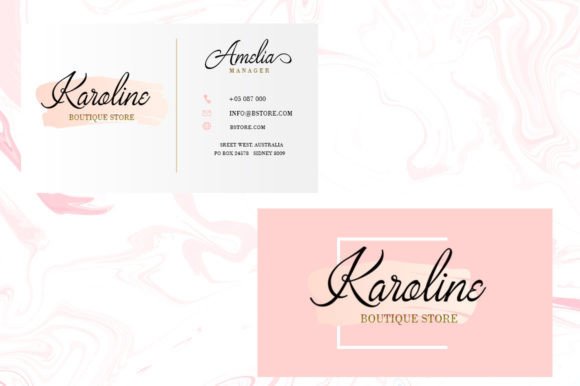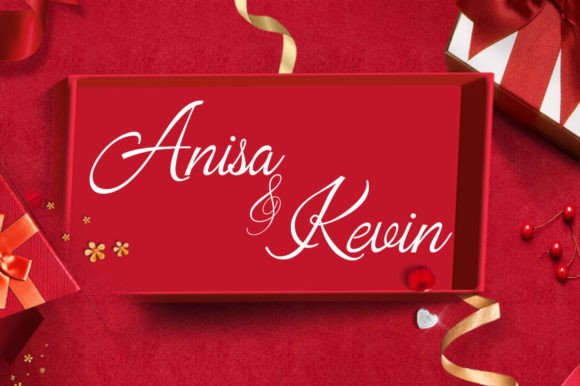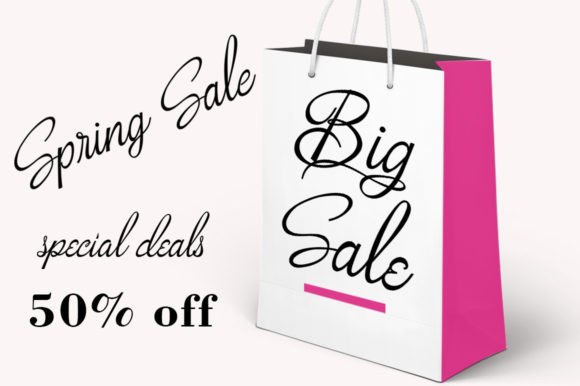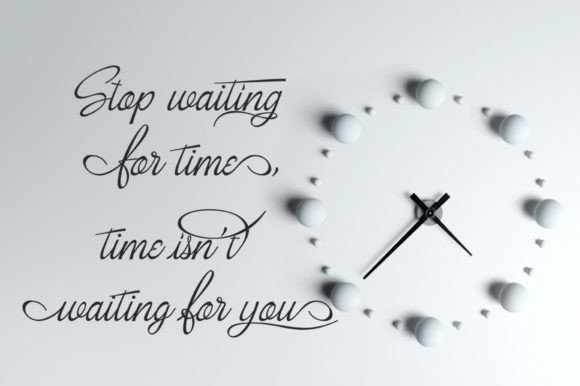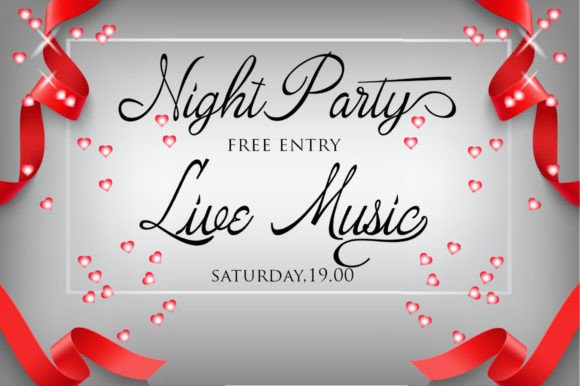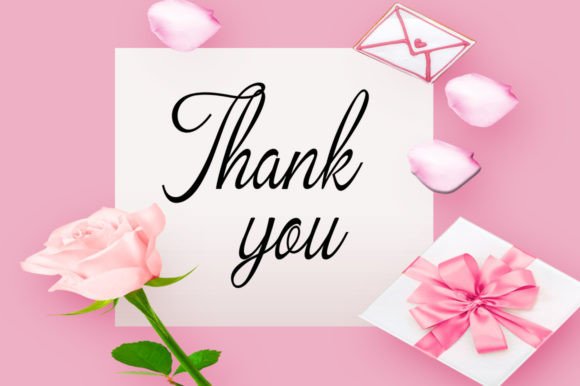
The Perfect Blend of Whimsy and Elegance
Have you ever found yourself staring at a beautifully crafted font, wondering how it was created and what inspired its designer? For many creatives, the process of discovering a new font is like stumbling upon a hidden treasure, waiting to be unleashed in their next project. This is exactly what happens when you lay eyes on the Armelya Font – a soft and sweet calligraphic typeface that seems to dance along the baseline.
With its casual yet elegant touch, Armelya Font is the perfect addition to any designer’s toolkit. Whether you’re working on a logo, wedding invitation, or even a t-shirt design, this versatile font is sure to bring a touch of whimsy and sophistication to your project. As a designer, you’ll appreciate the value that Armelya Font brings to your work, adding a unique and personalized touch to your creations.
Armelya Font Key Features
- Font Family: Armelya is a typeface that includes multiple font styles, such as regular, bold, italic, and bold-italic.
- Unique Characteristics: The font features a unique, hand-drawn style with a mix of modern and vintage elements, making it suitable for a wide range of creative projects.
Armelya Font Review
When I first saw the Armelya font, I was drawn to its elegant and sophisticated look. The font’s combination of rounded edges and sharp lines creates a unique aesthetic that is both modern and timeless ✨. The font is highly versatile and can be used in a variety of settings, from formal documents to creative projects.
- The Armelya font is highly customizable, with a wide range of weights and styles to choose from.
- The font’s rounded edges make it easy to read, even at smaller font sizes.
- The Armelya font is highly legible, making it a great choice for body text.
However, I do have a few concerns with the font. One of the main limitations is that the font may not be as effective at larger font sizes, as the rounded edges can become overwhelming ⚠️. Additionally, the font may not be the best choice for fonts that require a lot of emphasis, as the rounded edges can make the text appear less bold.
Overall, I think the Armelya font is a great choice for designers who are looking for a unique and elegant font. While it may have a few limitations, the font’s versatility and customizability make it a great addition to any design project.
Tips for Getting the Most Out of Armelya Font
Some tips for getting the most out of Armelya Font include:
– Using it for titles and headings to add a touch of elegance.
– Pairing it with other fonts to create a unique and interesting look.
– Experimenting with different font sizes and styles to find the perfect balance.
Some common use cases for Armelya Font include:
– Wedding invitations and stationery.
– Branding and marketing materials.
– Artistic and creative projects.
Q: Can I customize the Armelya Font to fit my brand’s specific needs?
Yes, the Armelya Font is highly customizable. You can adjust the font’s weight, style, and spacing to fit your brand’s unique aesthetic. Additionally, the font includes a range of OpenType features, such as ligatures and stylistic sets, which can be used to create custom typography and branding elements.